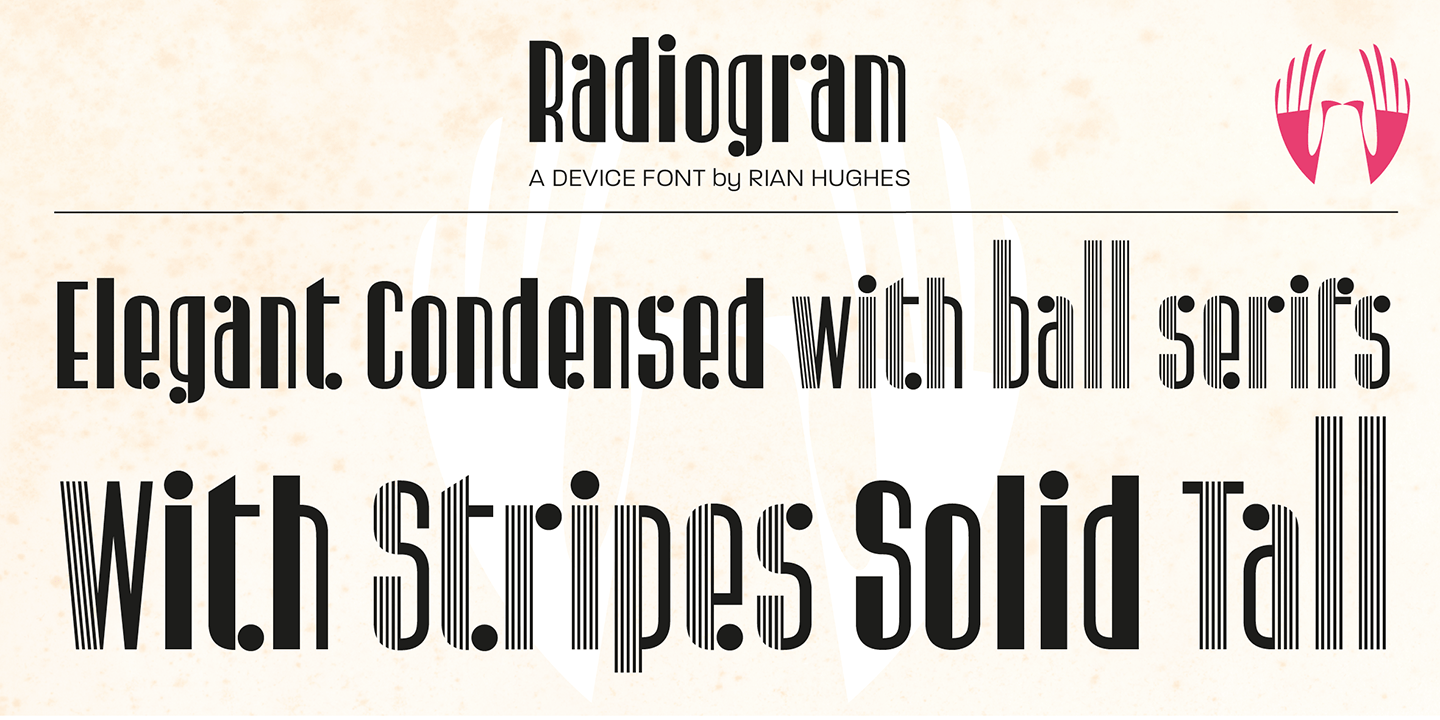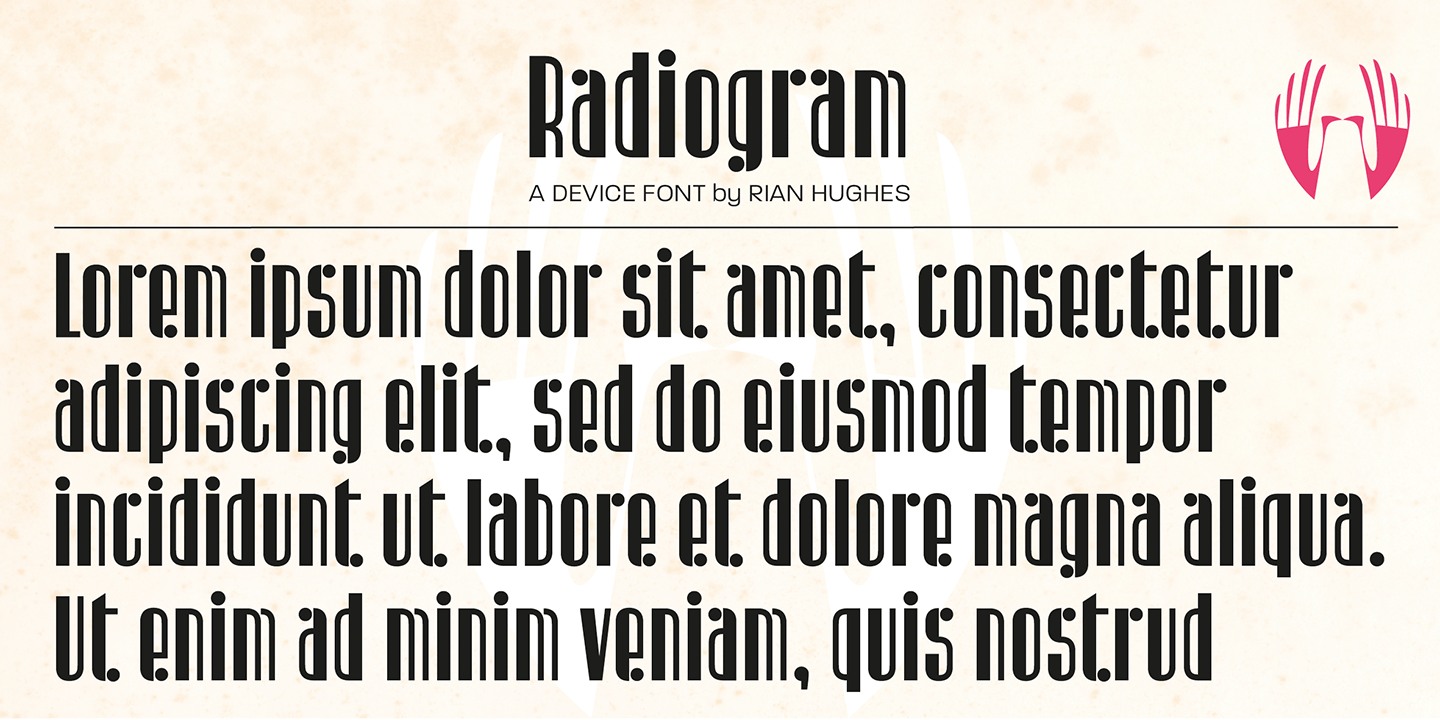
Radiogram
Font Family by Device
Radiogram, pure digital bakelite, can be layered - the solid variant can be placed under the striped version to create two-tone effects.